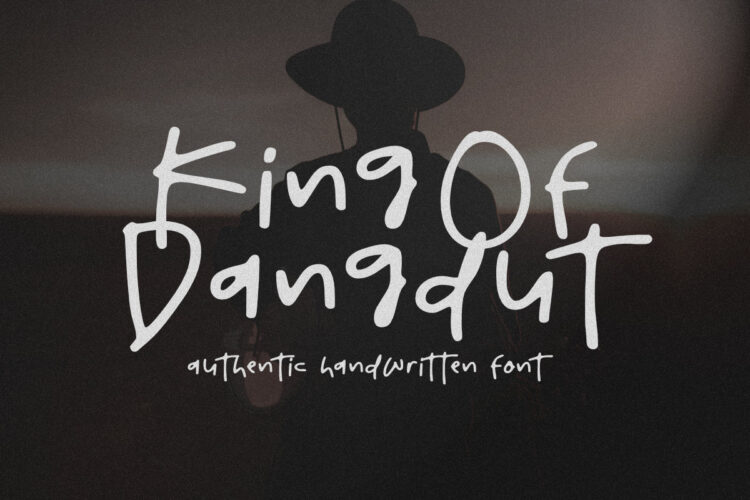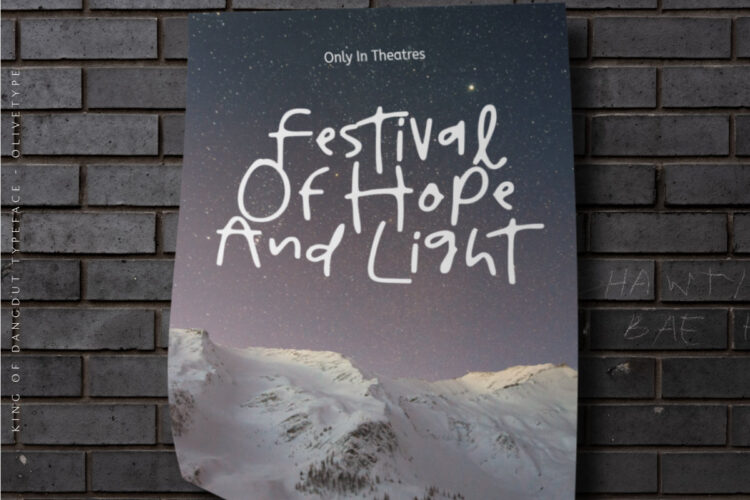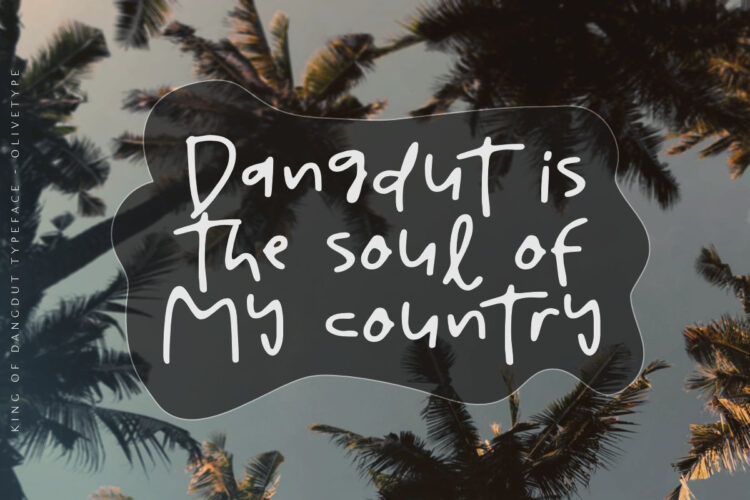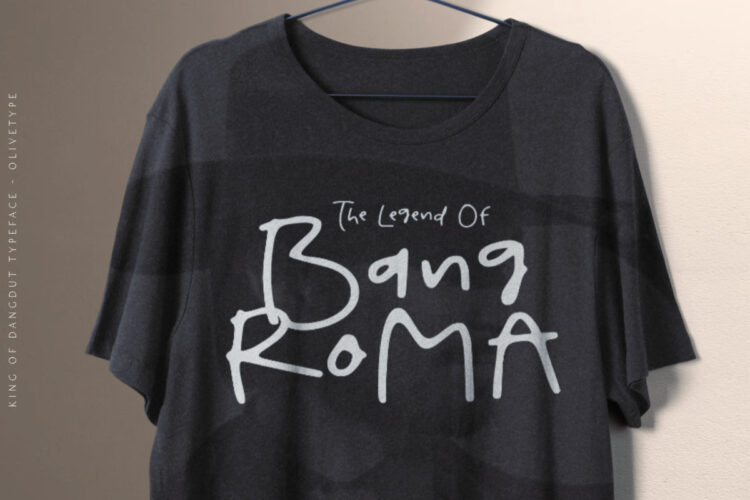
King Of Dangdut is a unique handwritten font, carefully handcrafted to become a true favorite. Its casual charm makes it appear wonderfully down-to-earth, readable, and ultimately, incredibly versatile. King Of Dangdut Typeface will look outstanding in any context, whether it’s being used on busy backgrounds or as a standalone headline!